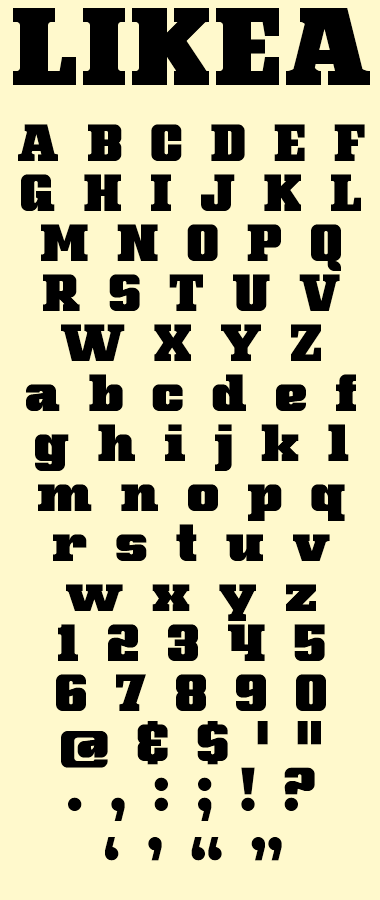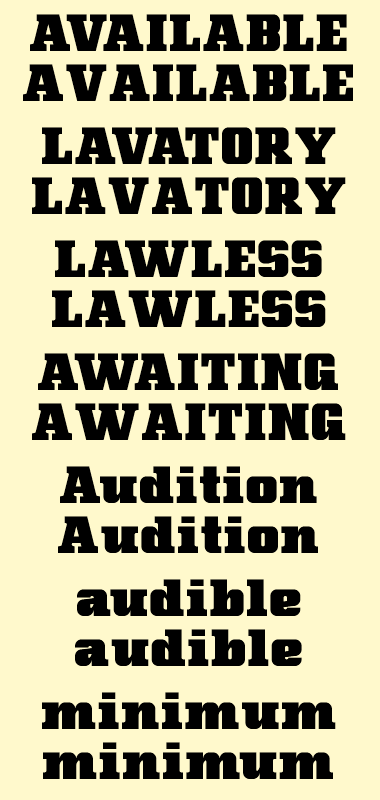
All of the curves are "real" curves using the curved bricks.
Using 2x2 filters,
- The x-height is 8 grid squares.
- The cap height is is 11 grid sqaures.
- The descender height is 3 grid squares.
- The widths vary, but for reference, the lowercase o is 9 grid squares wide.
I also included many ligatures. They are stored in the Extended Latin A character set.
There are ligatures for the following combinations:
- AV
- AVA
- AVAT
- AW
- AWA
- AWAT
- AY
- AYA
- AYAT
- VA
- VAT
- WA
- WAT
- YA
- YAT
- AT
- ATA
- TA
- TAT
- At
- Au
- Av
- Aw
- Ay
- Va
- Ve
- Vi
- Vo
- Vu
- Wa
- We
- Wi
- Wo
- Wr
- Wu
- Ya
- Ye
- Yi
- Yo
- Yu
- au
- av
- aw
- ay
- du
- dy
- hu
- gh
- gl
- it
- iv
- lp
- lu
- ly
- mp
- mu
- my
- nu
- nt
- ny
A few examples of the ligatures.
What a pretty!
(Please, look at the right feet of all the "A"s, it needs a little incorner angle, IMHO.)
Brilliant. Great use of ligatures to work around the current lack of kerning in FontStruct.
Holy cow!!! that is very impressive. The Design is great, and it's a nice solution for kerning
Holy manual kerning, Batman! Verrry niiice. Love the negative arrows.
Your ATA ligature is by far my mostest favoritest lig.
@elmoyenique Thank you. What great eyes you have, I did miss that little curve on the inside of the right leg of all the A's. They are fixed now, but I did not update the samples.
Wow! I Likea it!
Great idea, the ligatures. You get my applause.
Another amazing fontstruction. Great job!
Aphoria, how come I did not come up with the ligatures idea :-)
Incredible work, not only because of the ligatures but also as such.
I don't want to be a smart ass but I thought that ligatures are only those combined characters that are really connected. Anyone here a typophile expert?
I likea Likea a lotea.
@laynecom Thanks. My understanding is that ligatures are glyphs that combine two or more characters, usually to address kerning issues.
But, I could be wrong...what do others say?
I agree with laynecom. So does Wikipedia lol http://en.wikipedia.org/wiki/Typographic_ligature
My understanding of a Ligature in Font Design is a special character that combines two (or more) letters into a single character. Type designers create ligatures because they look better than setting the same character combination's individually, and also to solve the problem of characters that “crash” into each other when next to each other.
In Dutch that sort of "ligatures" are called "ligaments". I don't know if it's that in English.
By the way, nice font! I LOVE the S!